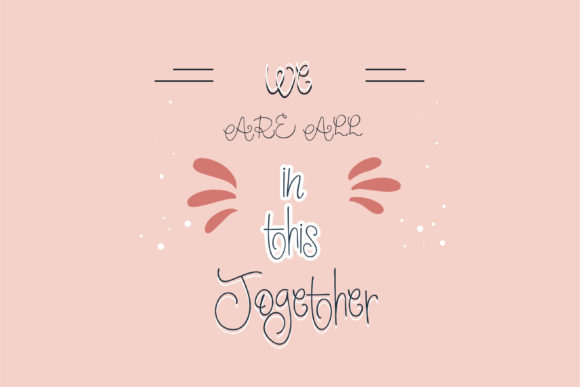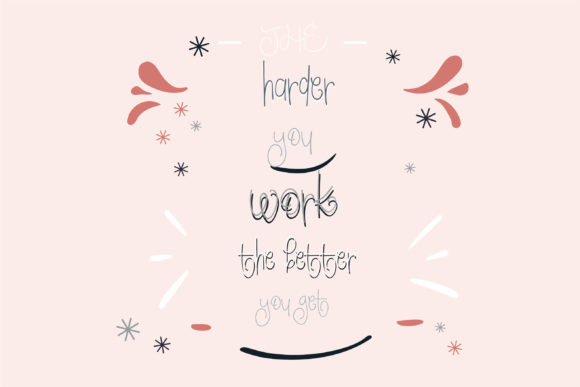
About ZP Shoestring Font
“Shoestring Font” is an original handwritten typeface that features consistent curls throughout its design. This font’s playful and whimsical appearance adds a touch of fun to a wide range of design projects. The curls that run consistently throughout the font’s characters contribute to its distinct and eye-catching look.
With its playful nature, “Shoestring Font” can be a fantastic choice for various design applications. Whether you’re creating posters, social media graphics, branding materials, or any other type of content, this font has the ability to inject a sense of liveliness and creativity into your work.
The consistent curls within the font’s design make it stand out and give it a unique personality. Its playful vibe can resonate well with audiences seeking designs that are full of energy and enjoyment.
In summary, “Shoestring Font” is more than just a font—it’s a creative tool that brings a sense of playfulness and originality to your ideas. Its ability to infuse designs with a lively and fun spirit makes it a valuable asset for designers aiming to create visually appealing and enjoyable designs that leave a lasting impression.